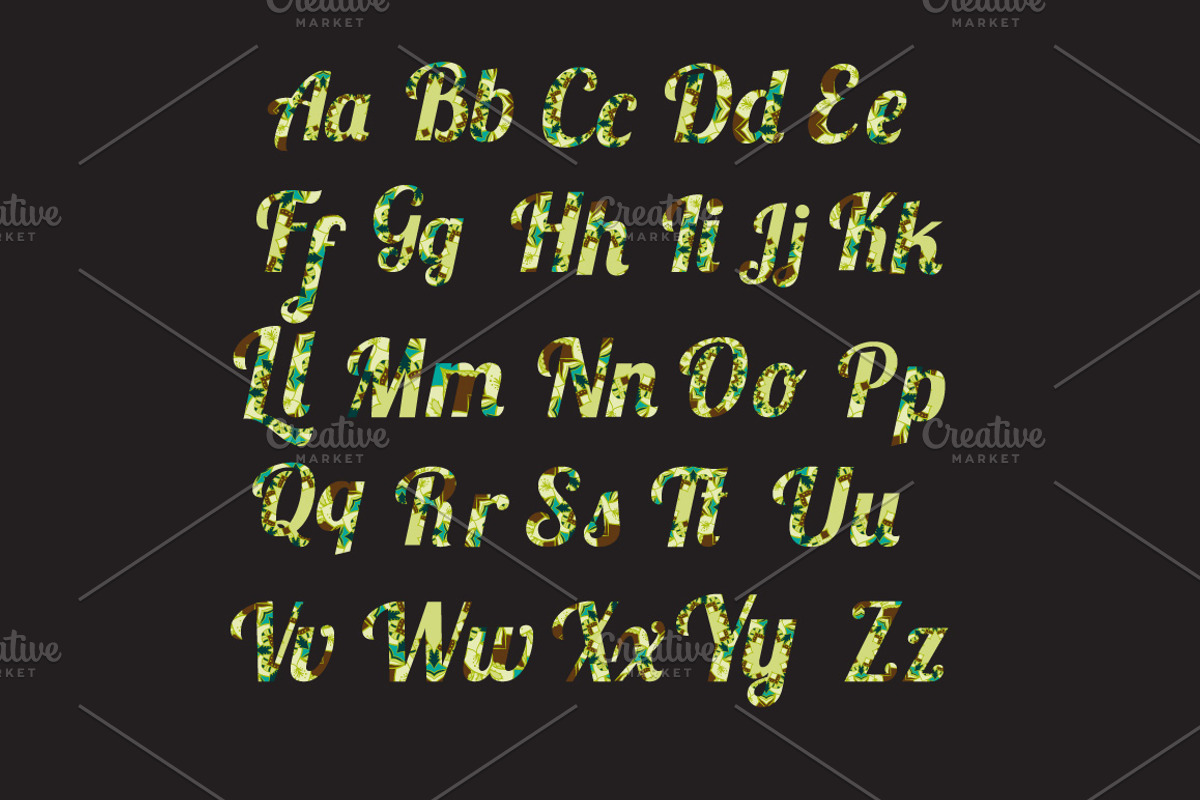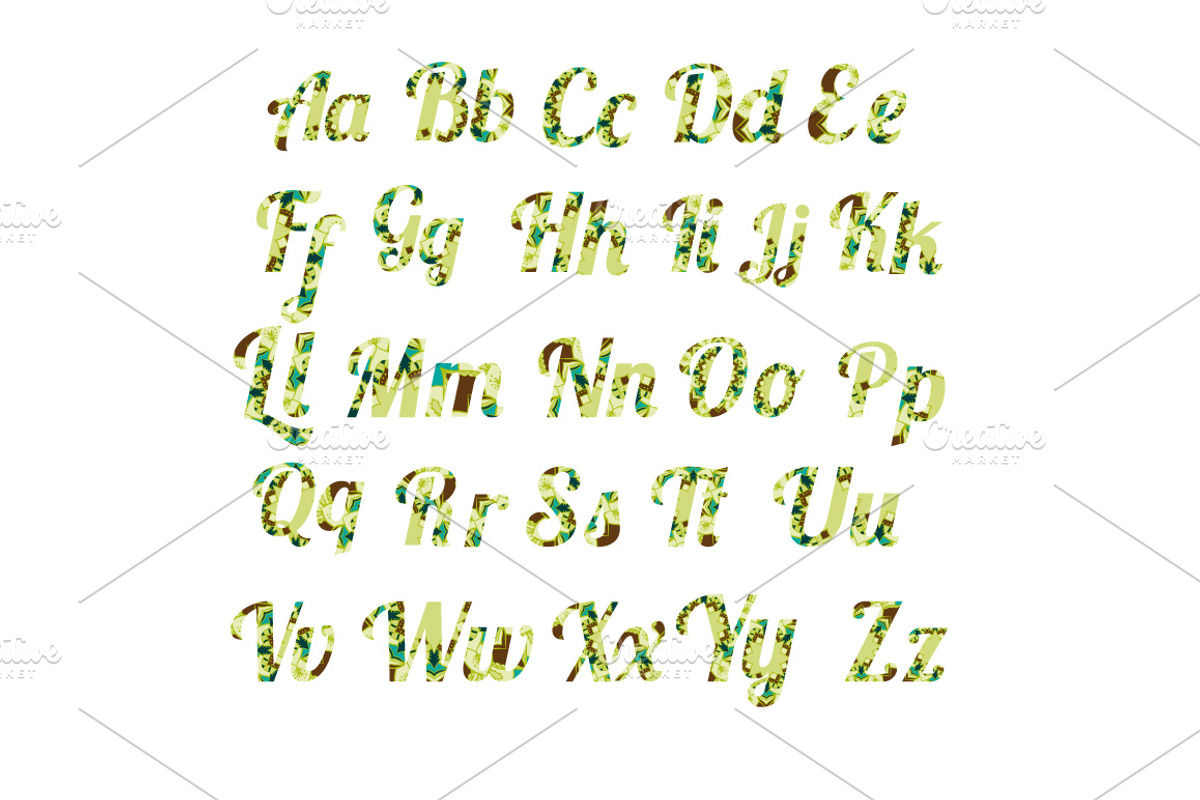
Floral font
Floral font by Lytvynenko Anna is a font selected for branding, posters, packaging, typography.
Why Floral font is worth a look
Floral font by Lytvynenko Anna fits naturally into Branding, posters, packaging, typography.